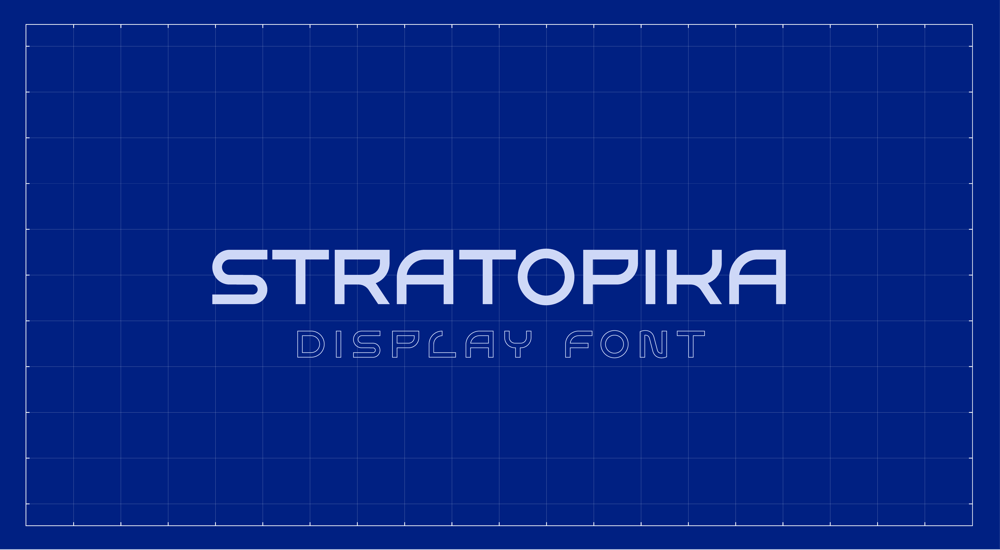
Stratopika
Stratopika font
Stratopika Font Family was designed by Ole-Jørgen Ramstad and published by OJR Design. Stratopika contains 6 styles and family package options. Stratopika is a typeface inspired by the early science fiction movies and architecture. The font geometric shapes makes it useful in both poster and logo creations. Stratopika is mainly designed to be a display font, but it can also be used as quantity text.